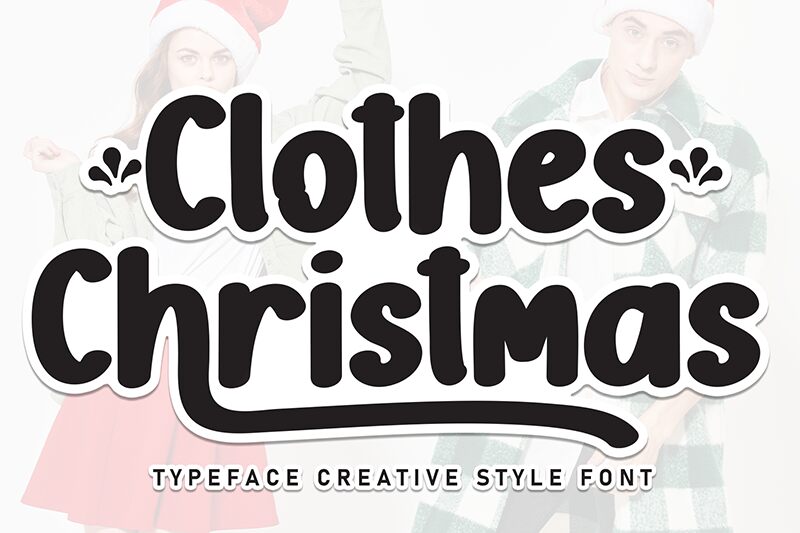
Clothes Christmas font by Scratchones represents a script style and an artistic approach to deliver your next project. Its decorative elements hold unique designs but that doesn’t mean they’re ineffective since the energetic appearance of the font and its stunning blends and smooth transitions make it a festive addition to all platforms. The font presents a fashionable display with a friendly and informal style that easily switches its position with the texts displayed.
When you’re looking to use Clothes Christmas for personal projects, you can display it on Christmas cards and celebratory invitations or use it for digital presentations like posts, emails, and blogs. Decorate your festive windows with the font or use it for new branding or packaging ideas for gift shops and children’s toys.